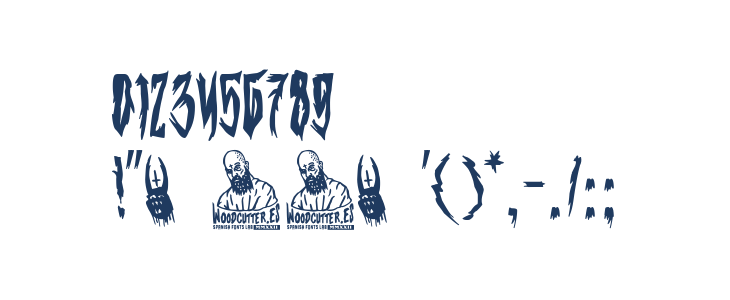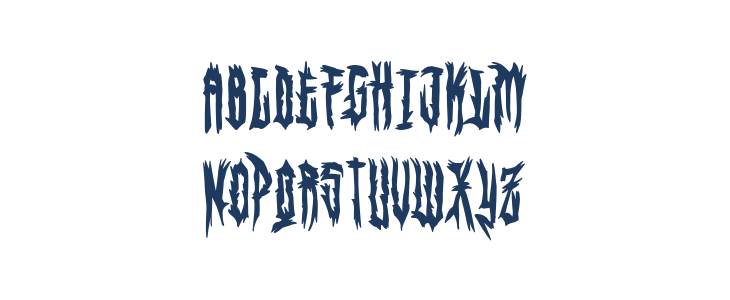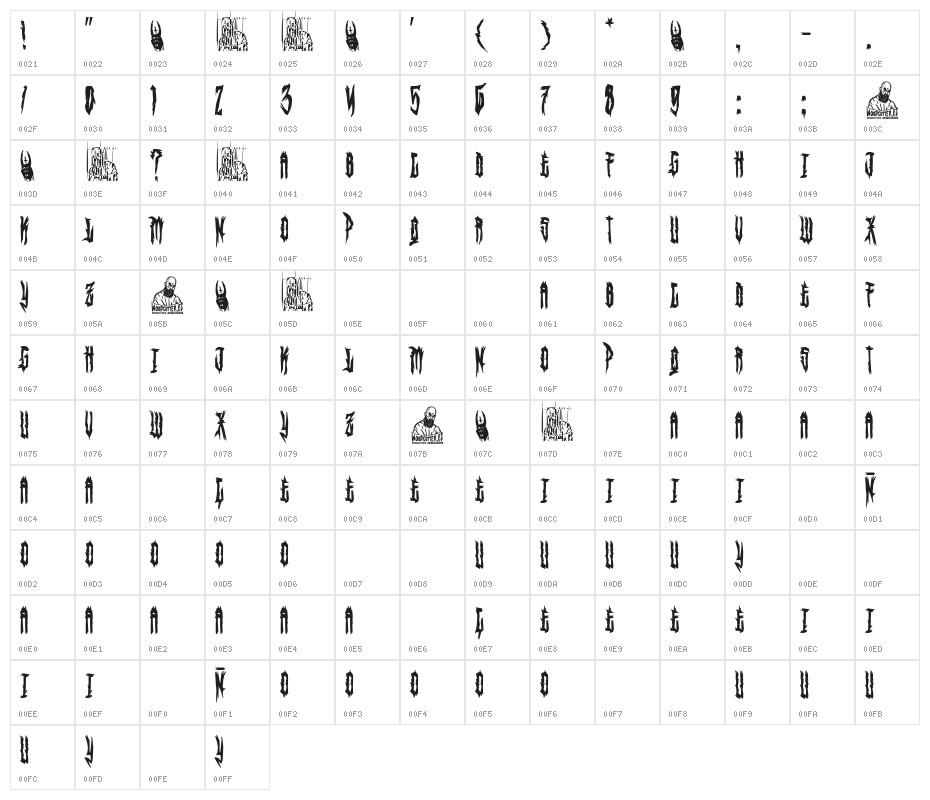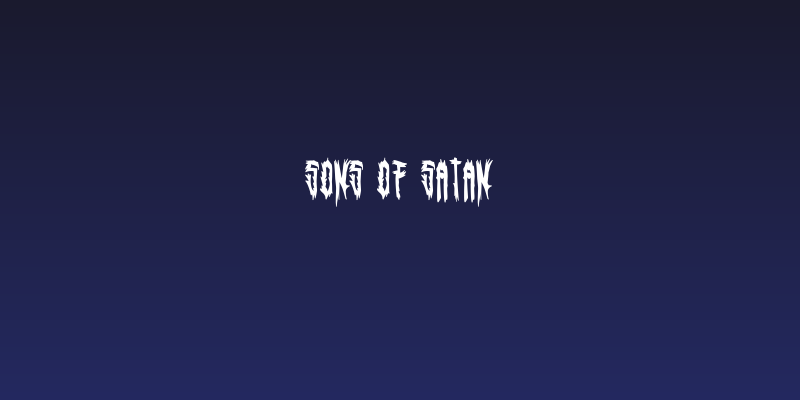
Sons of Satan Font
Sons of Satan Description
A highly decorative, jagged, and aggressive display font with sharp, irregular edges that evoke a horror or heavy metal aesthetic. The characters are bold, condensed, and feature exaggerated spikes and uneven lines, giving a chaotic and intense visual impact.
| Overall Style | Decorative, Horror, Aggressive |
| Proposed Projects | Horror movie posters, Halloween event flyers, metal band logos, video game titles, extreme sports branding. |